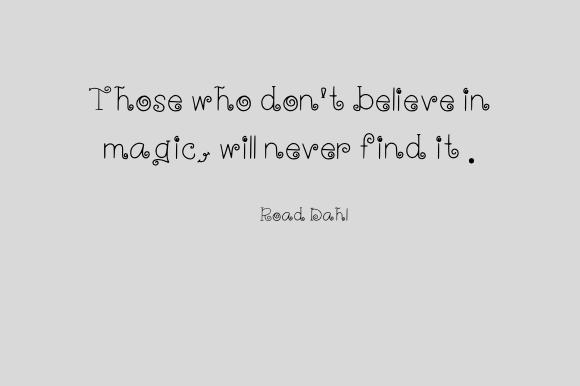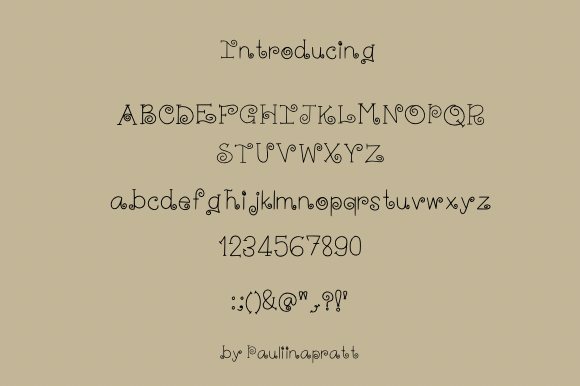
Introduction to I Am Witches Font
I Am Witches is a cute and whimsical handwritten font.
It has beautiful and well-balanced characters which makes it suitable for a wide range of crafty ideas .